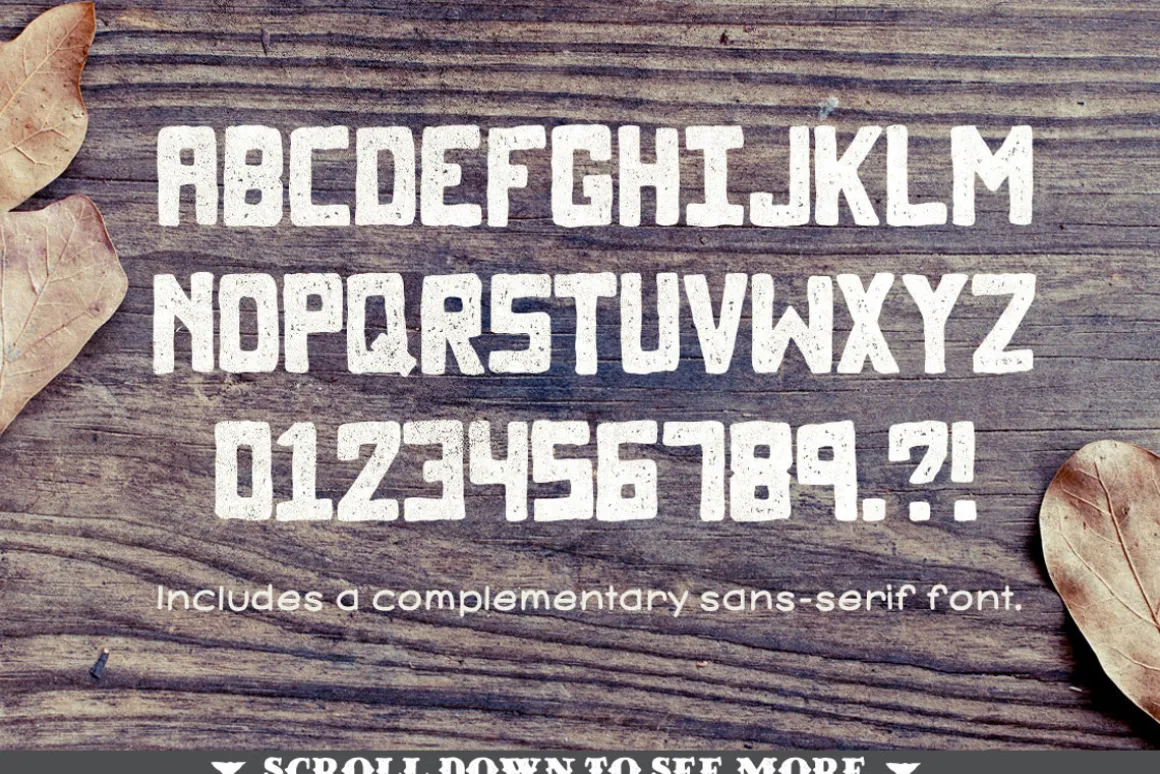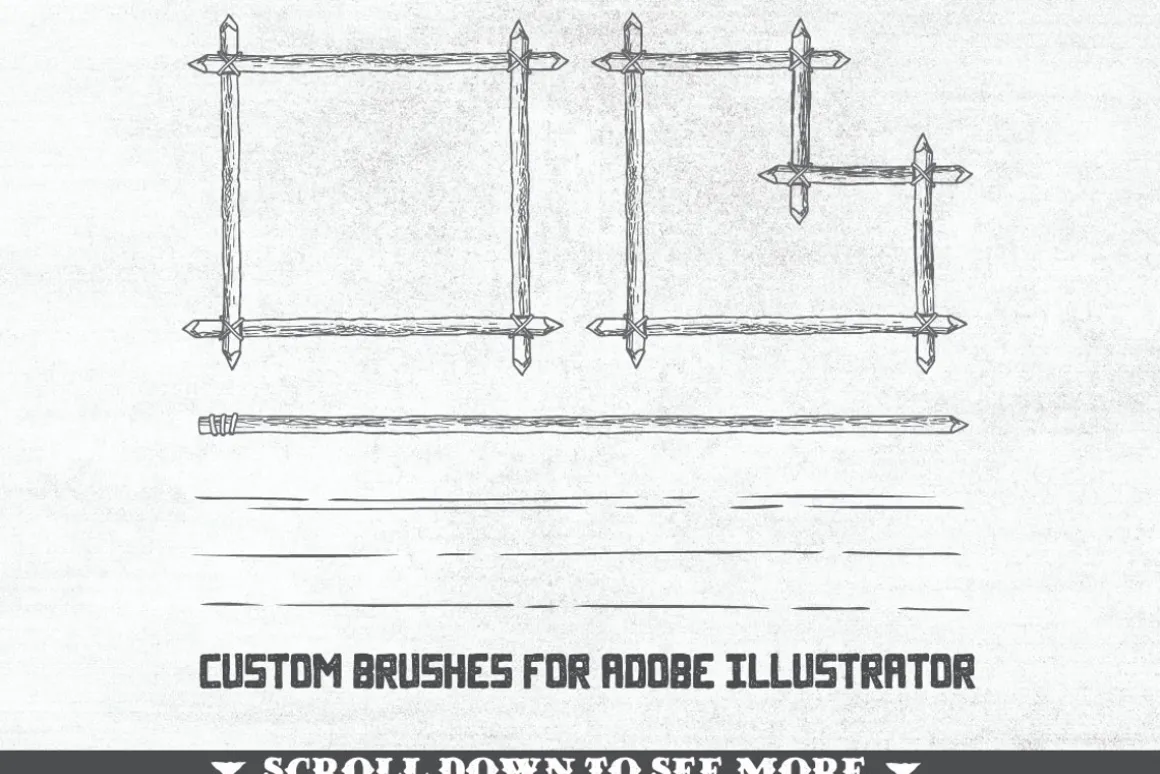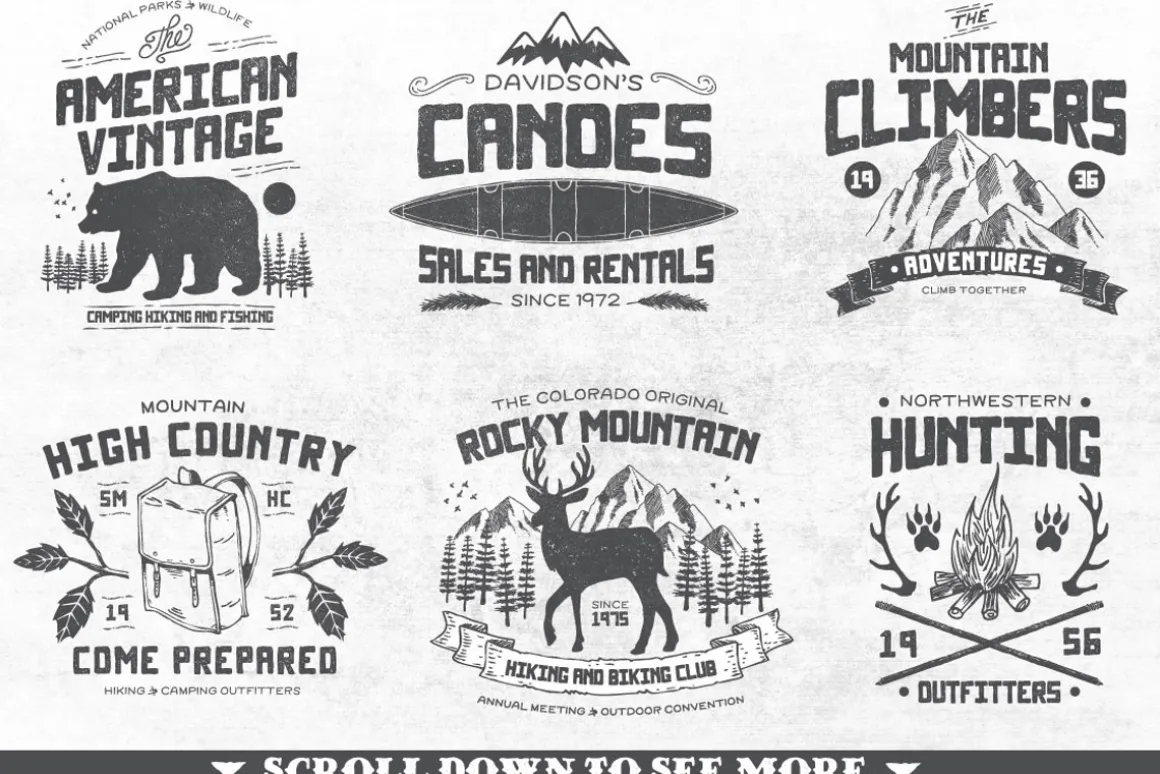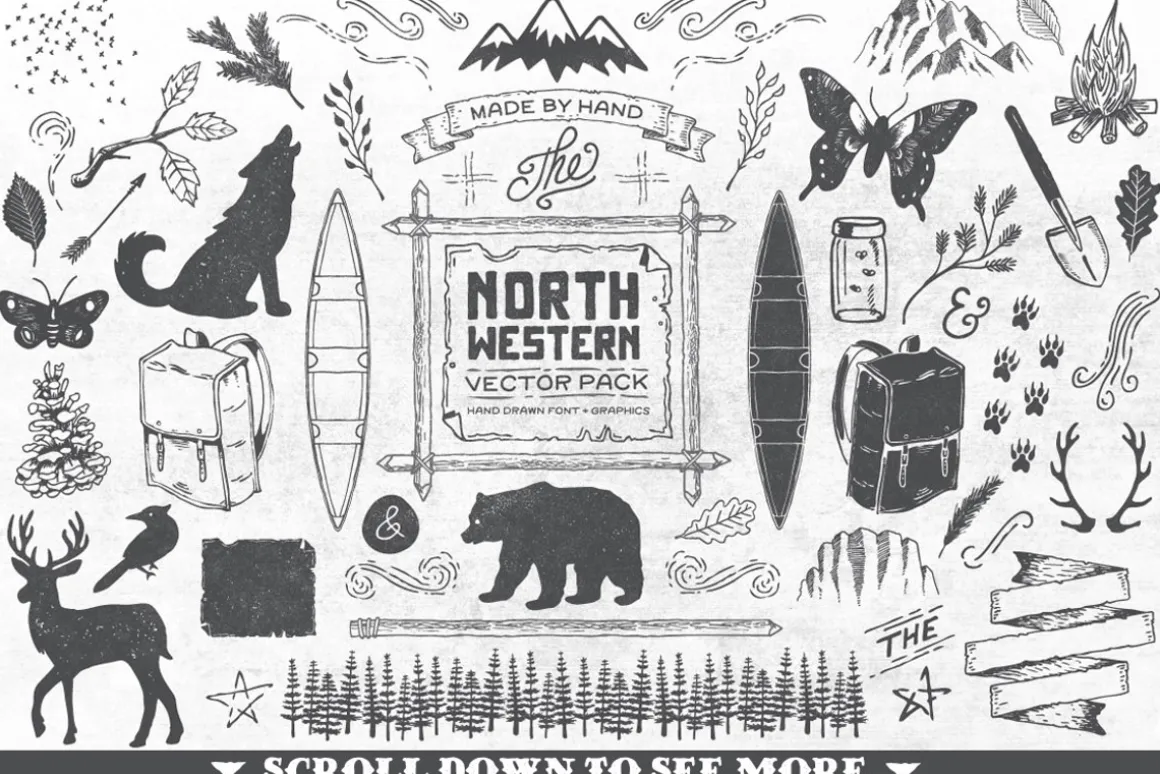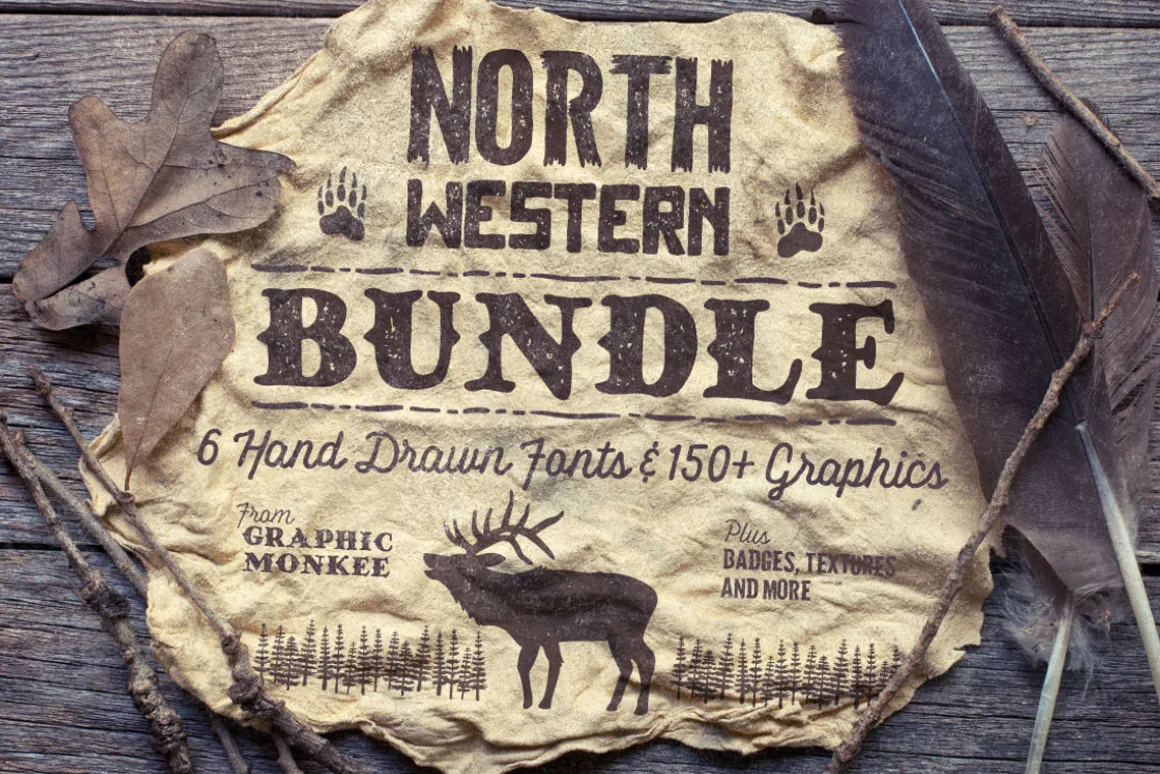
Here it is! All 3 volumes of the North Western font series in one BIG bundle! This is a collection of fonts and vector graphics inspired by the northwestern region of America. Once I sat down and started sketching the set, it became so big that I’m splitting it into 3 volumes. This bundle includes all three volumes!
- 6 Hand drawn fonts
- 150+ Hand drawn vector graphics
- 18 Vintage style vector badges
- 16 Custom brushes for Adobe Illustrator